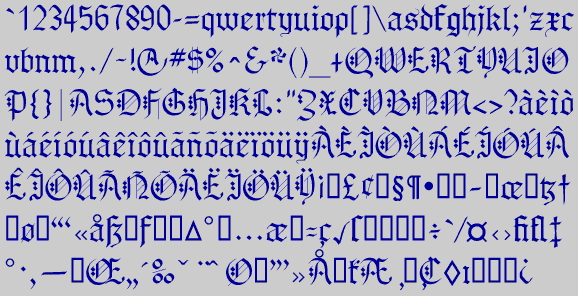
Today medieval styles are used only for display. Their fall from favor is unfortunate because these styles have tremendous character and there are so many interesting variations that are possible.
The inspiration for AlbertBetenbuch came from a typeface drawn by Albert Dürer, and an interpretation of that face in Arthur Baker's Historic Calligraphic Alphabets (Dover, 1980). The characteristic common to AlbertBetenbuch and the faces inspiring it is the decorative zig-zag with the upper-case letters.
AlbertBetenbuch is one of the best of the medieval-style faces on the No-Hype Type CD and can be considered for use whenever an ornate calligraphic face or an elegant "Old English" or medieval style is called for.